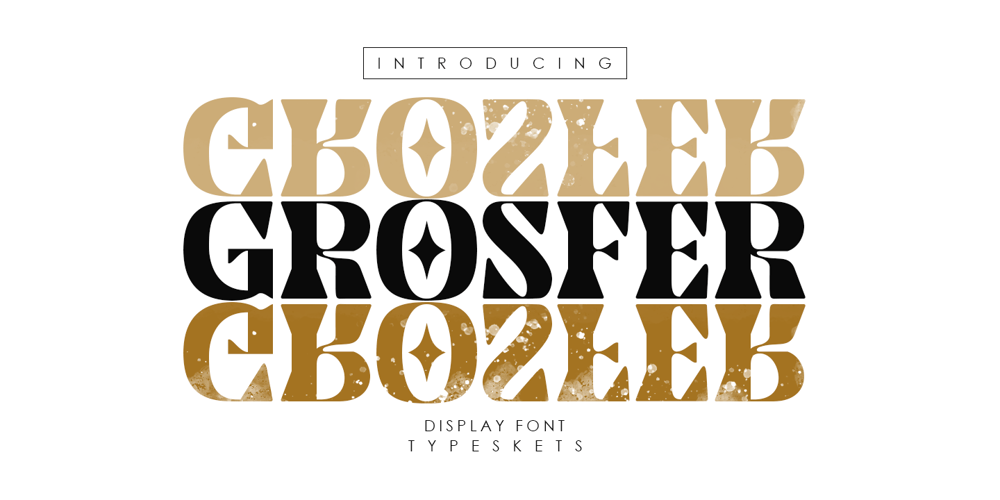
Grosfer Font Family was designed by Sahrul Hidayat and published by Typeskets. Grosfer contains 1 styles and family package options. Grosfer is a cool, bold and thick lettered display font. This font reads as strong, confident, and dynamic and can add a fierce character to your designs.